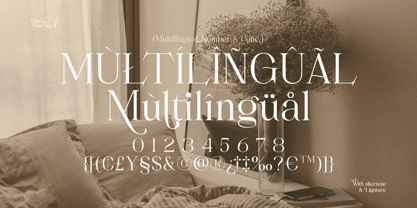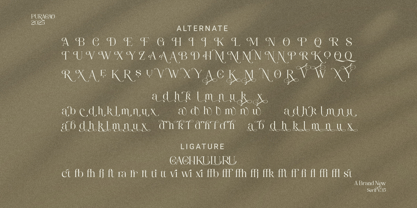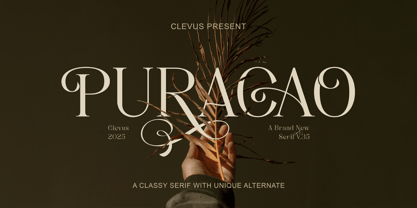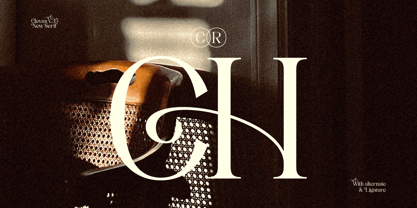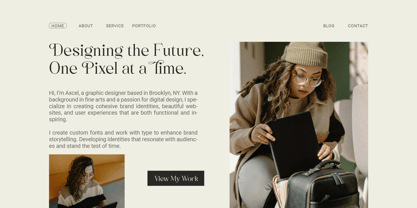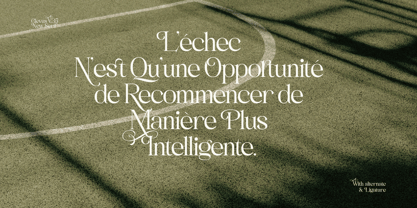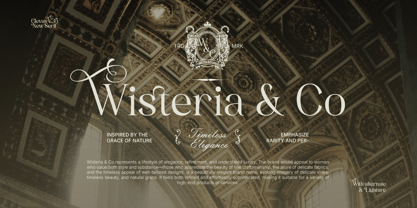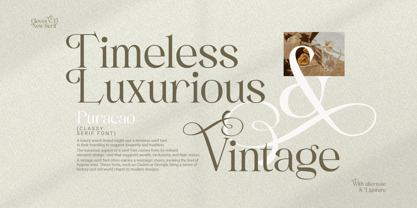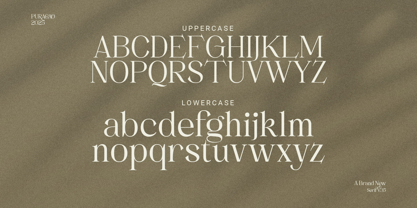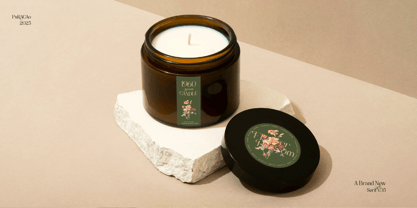
Puracao
The Puracao Font Family was designed by Alfinu Zafir and published by Clevus. Puracao contains 1 styles. More about this family
Introducing Puracao, a font that epitomizes modern luxury and elegance. Designed to elevate your brand, Puracao combines contemporary style with timeless sophistication, making it perfect for logos and high-end branding projects.
Perfect For:
- Luxury Brands: Create logos and branding that exude sophistication and elegance.
- High-end Products: Design packaging and marketing materials for premium products.
- Event Invitations: Develop stunning invitations for weddings, galas, and exclusive events.
- Upscale Marketing: Elevate your marketing materials with a touch of luxury and style.